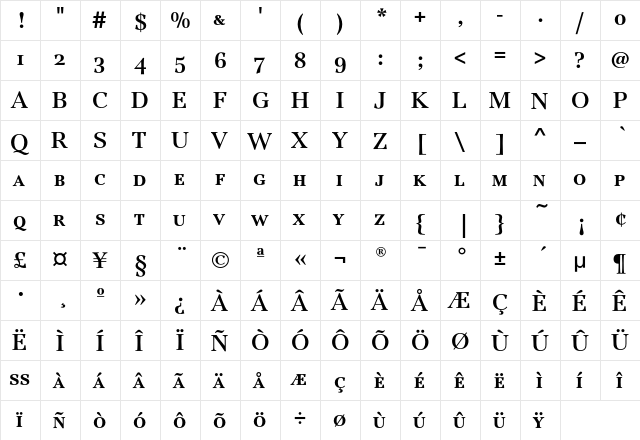
JamilleSCEF-Bold Regular
Design Context for JamilleSCEF-Bold Typeface
JamilleSCEF-Bold takes a measured approach to typography — its balanced proportions and neutral character make it a reliable workhorse for both digital and print work. The heavy weight commands attention and anchors typographic hierarchies.